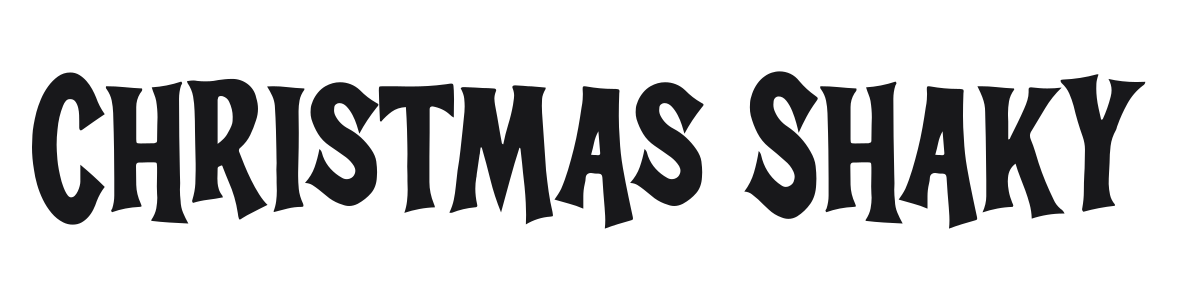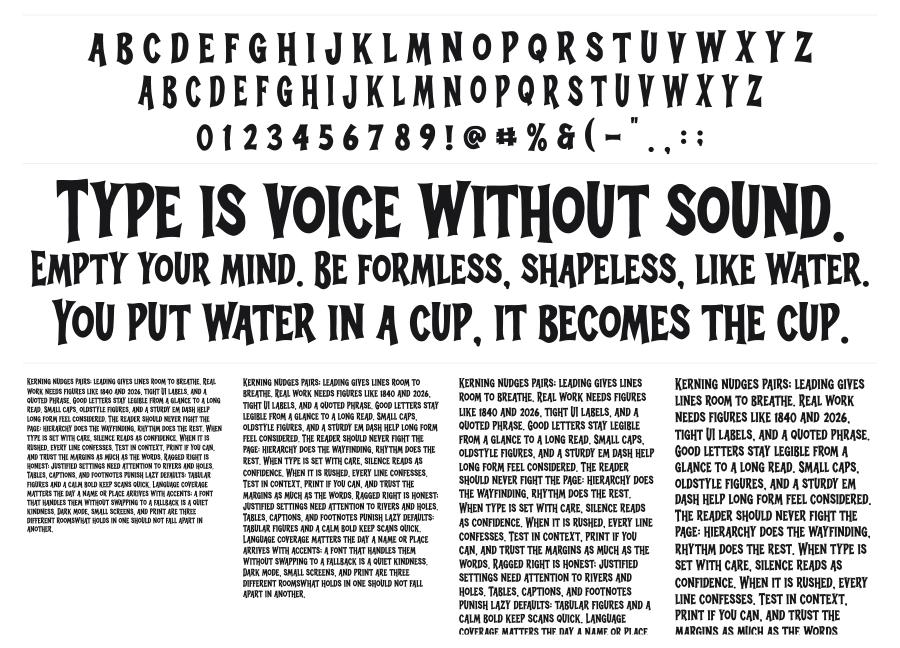
Christmas Shaky
Christmas Shaky is a bold holiday display serif with a deliberately uneven, trembling quality baked into every character. The letters feel hand-carved or painted in a hurry, with dramatic stroke contrast, pointed serifs, and a vaguely gothic edge that keeps it from being too sweet. It works best large, on seasonal packaging, event posters, or anywhere a Christmas aesthetic needs a little grit.